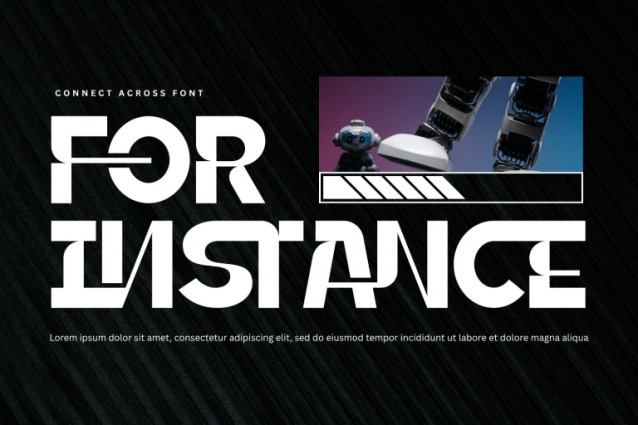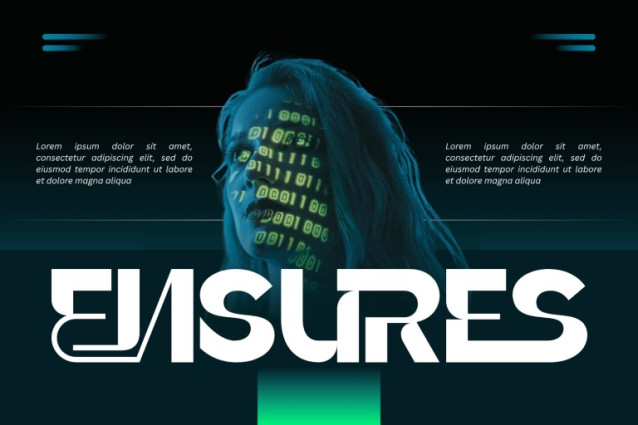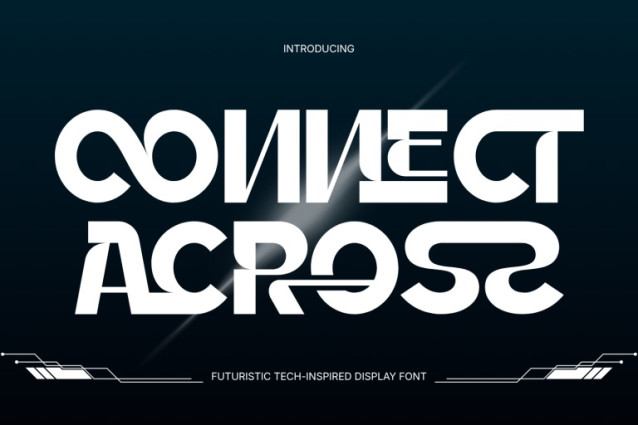
CONNECT ACROSS – GEOMETRIC FONT
CONNECT ACROSS – GEOMETRIC FONT is a bold geometric display typeface that explores the intersection of modernist simplicity, experimental typography, and futuristic visual design. Built from clean geometric forms, broad curves, straight structural strokes, and carefully controlled negative spaces, the typeface transforms familiar letterforms into distinctive graphic shapes with a strong architectural presence. Its unconventional construction, extended terminals, interrupted forms, and unexpected connections give CONNECT ACROSS a unique identity while maintaining a clean and sophisticated appearance.
The design combines circular and rectangular geometry with sharp cuts and asymmetric details, creating an engaging contrast between softness and precision. Some characters feature sweeping rounded structures, while others use dramatically simplified or fragmented forms, giving words an almost logo-like quality. This modular approach makes CONNECT ACROSS especially effective when typography needs to become a central part of the visual composition rather than simply convey information.